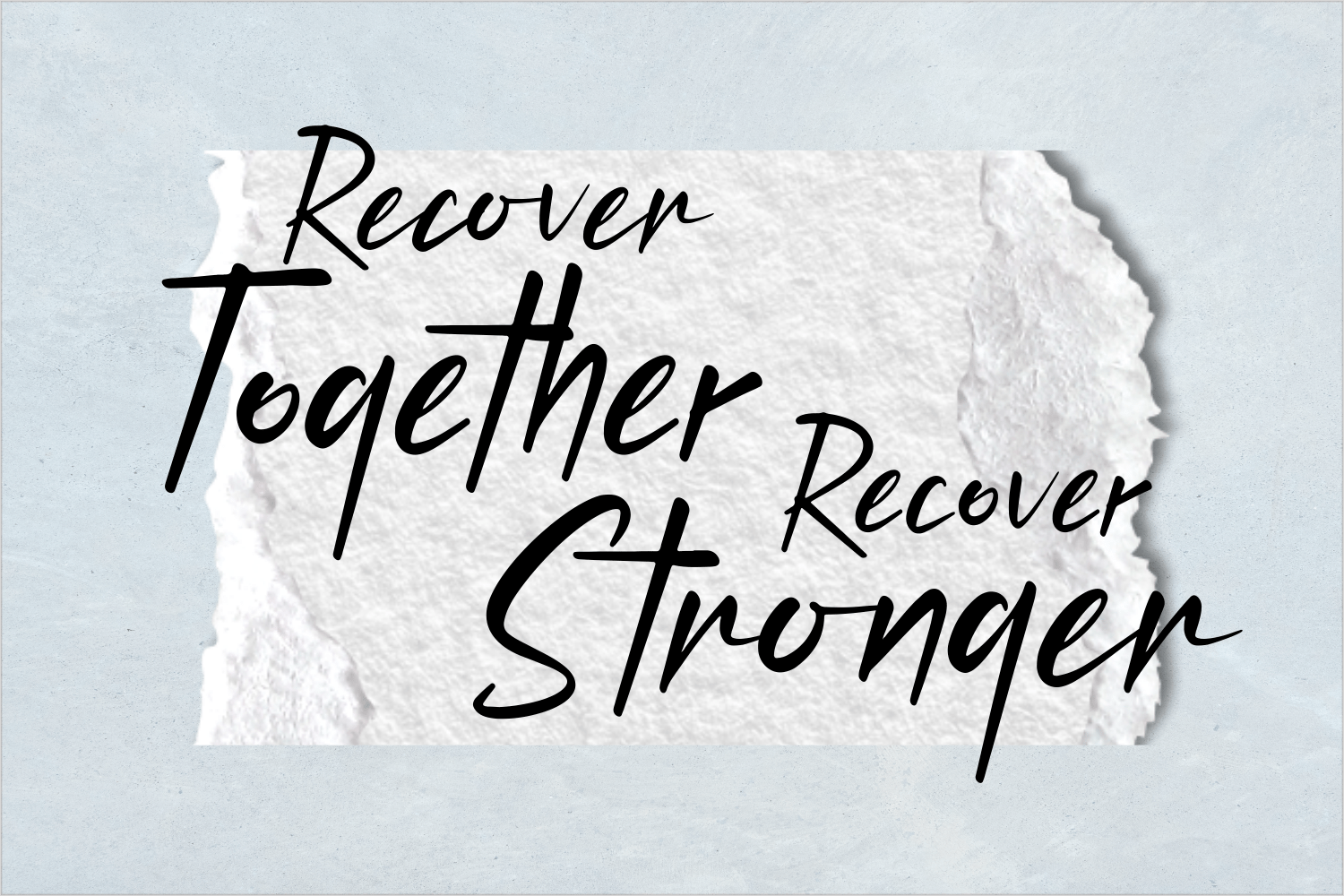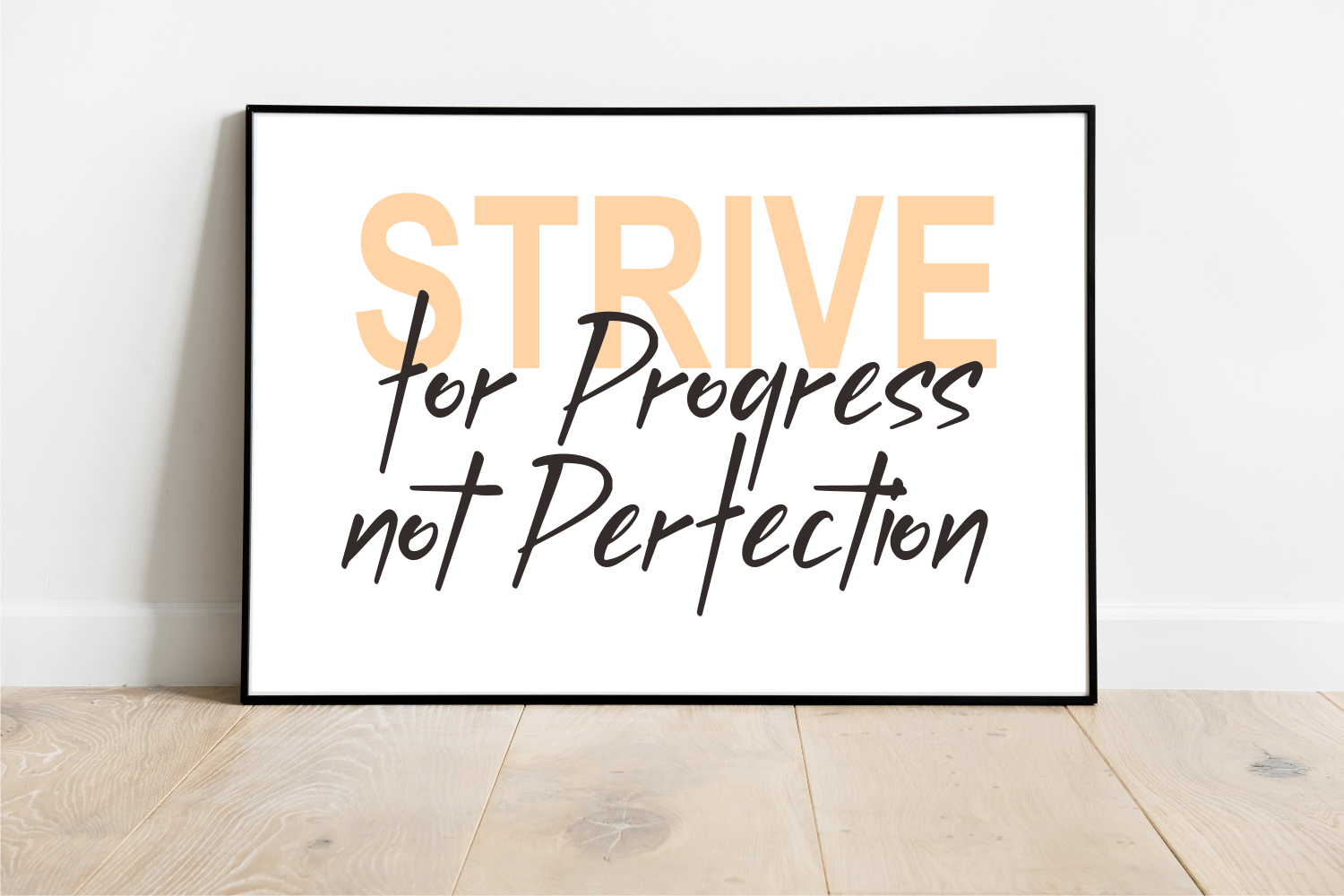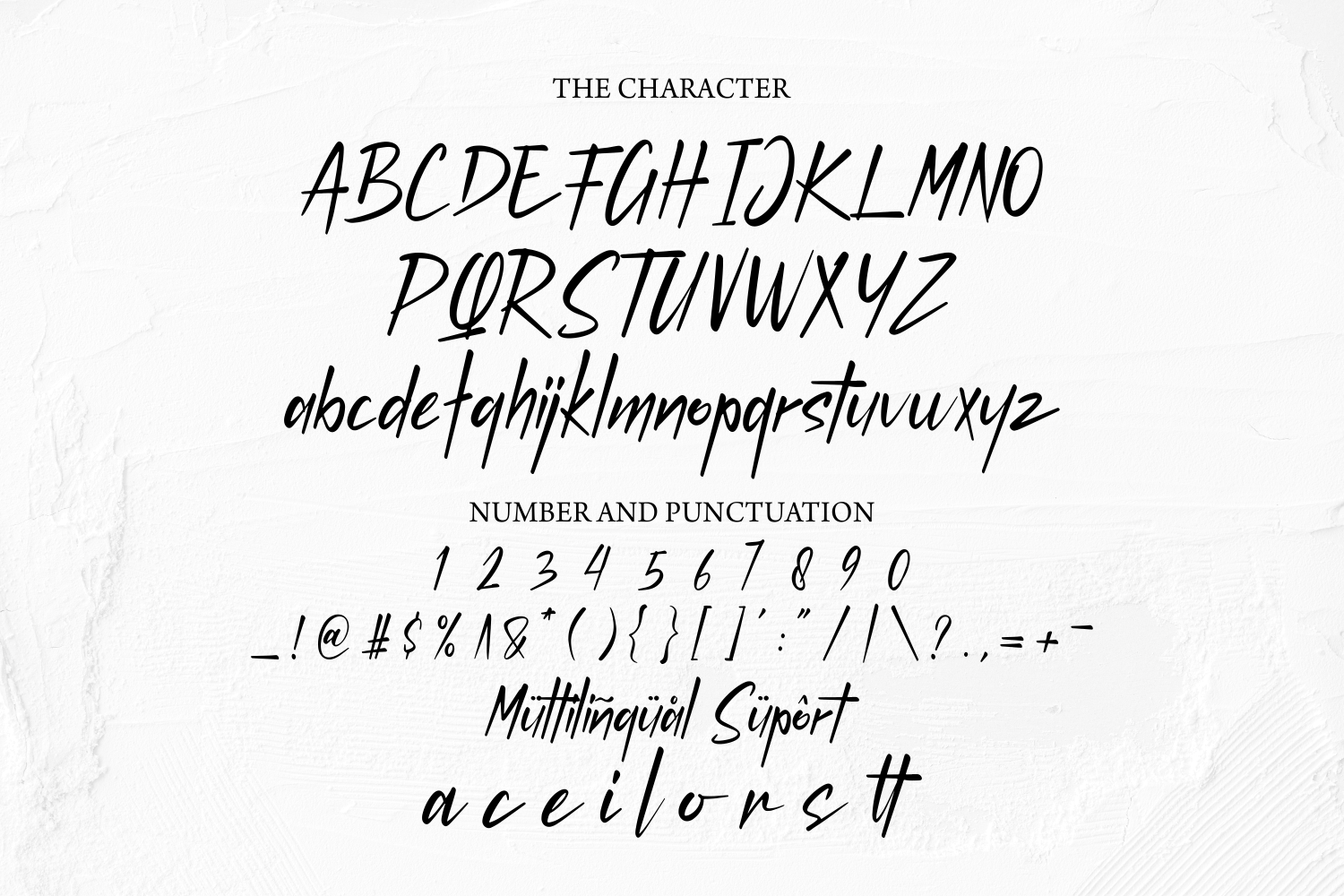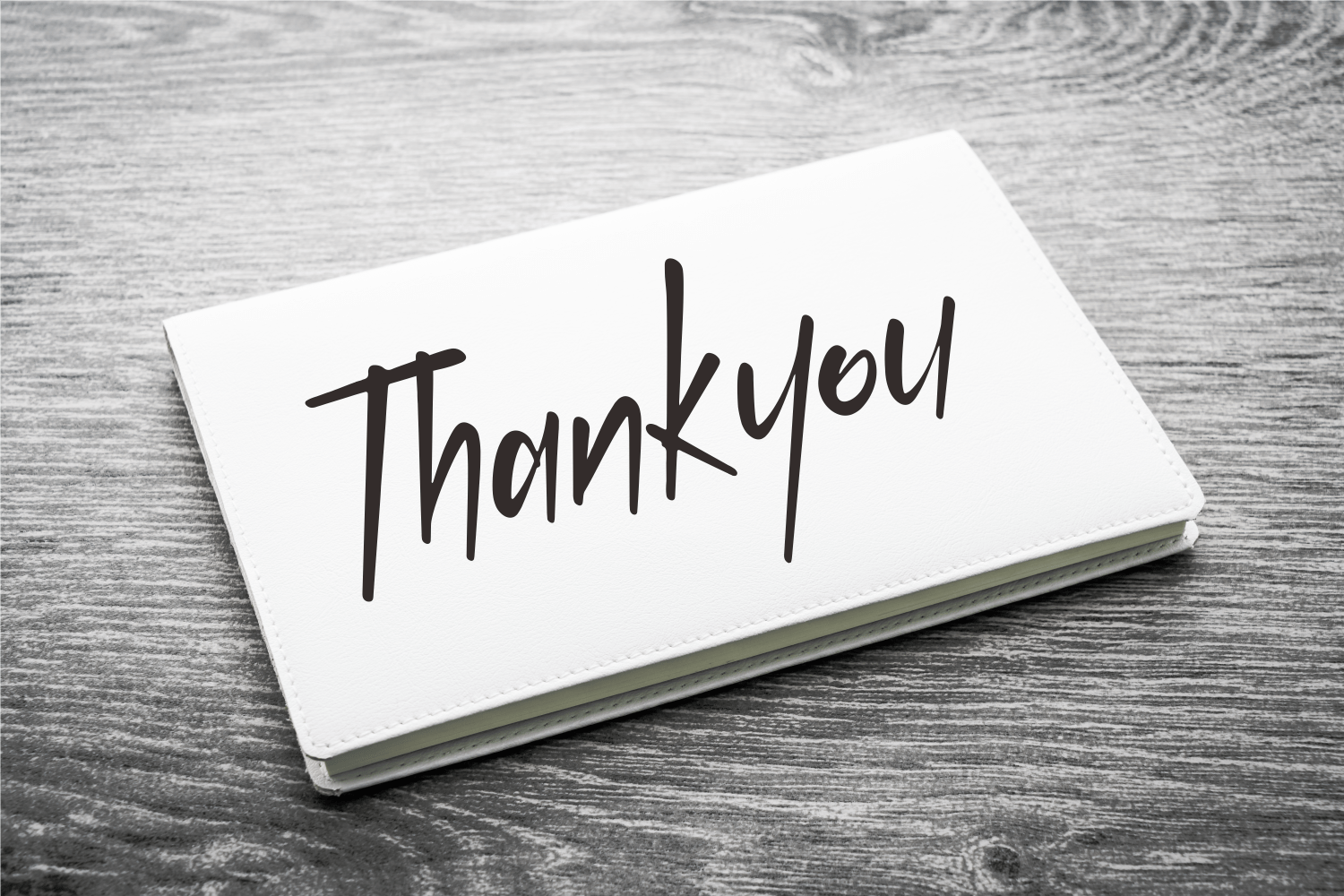
Slick Buttery Font
Slick Buttery Script Font is a free-flowing script font created for packaging products, invitation cards, flyers, mockups, event posters, and anything else that requires high-quality vibes. It has a beautiful and balanced character, that fits well with the large design pool.